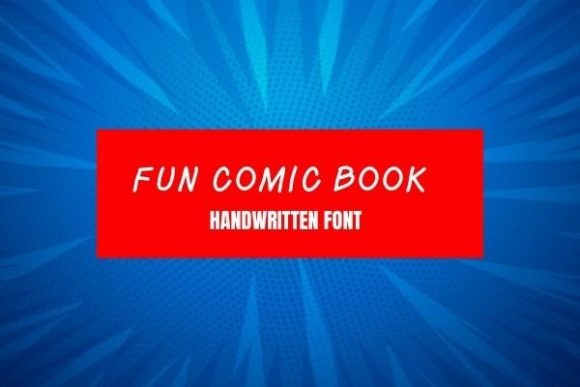
Step into the world of visual storytelling with Fun Comic Book Font, a remarkable creation by Sweet Dandy Designs. This enchanting script font captivates with its effortless charm, effortlessly transforming your words into vibrant, eye-catching masterpieces.
Crafted with meticulous care, Fun Comic Book is more than just a font; it's an artistic journey that invites you to let your imagination soar. Whether you're a seasoned designer or just starting, this font will add a touch of magic to your creative projects.
The versatility of Fun Comic Book is truly remarkable. It dances gracefully across PowerPoint presentations, adding a playful touch to your ideas. Let your words leap off the screen with the energetic curves and whimsical lines of this font.
Elevate your social media presence with Fun Comic Book. Its distinctive style will make your posts and updates stand out from the crowd. Capture the attention of your followers with captivating graphics, eye-catching quotes, and thought-provoking messages, all brought to life with the charm of Fun Comic Book.
Unleash your creativity with Fun Comic Book in eye-catching invitations, personalized greeting cards, and heartfelt letters. Let your words carry the warmth of your emotions as they dance across the page, leaving a lasting impression on the hearts of your loved ones.
With Fun Comic Book, the possibilities are boundless. Dive into the world of design with confidence, knowing that this font will enhance your every creation. Join the ranks of those who have discovered the magic of Fun Comic Book and let your imagination run wild.